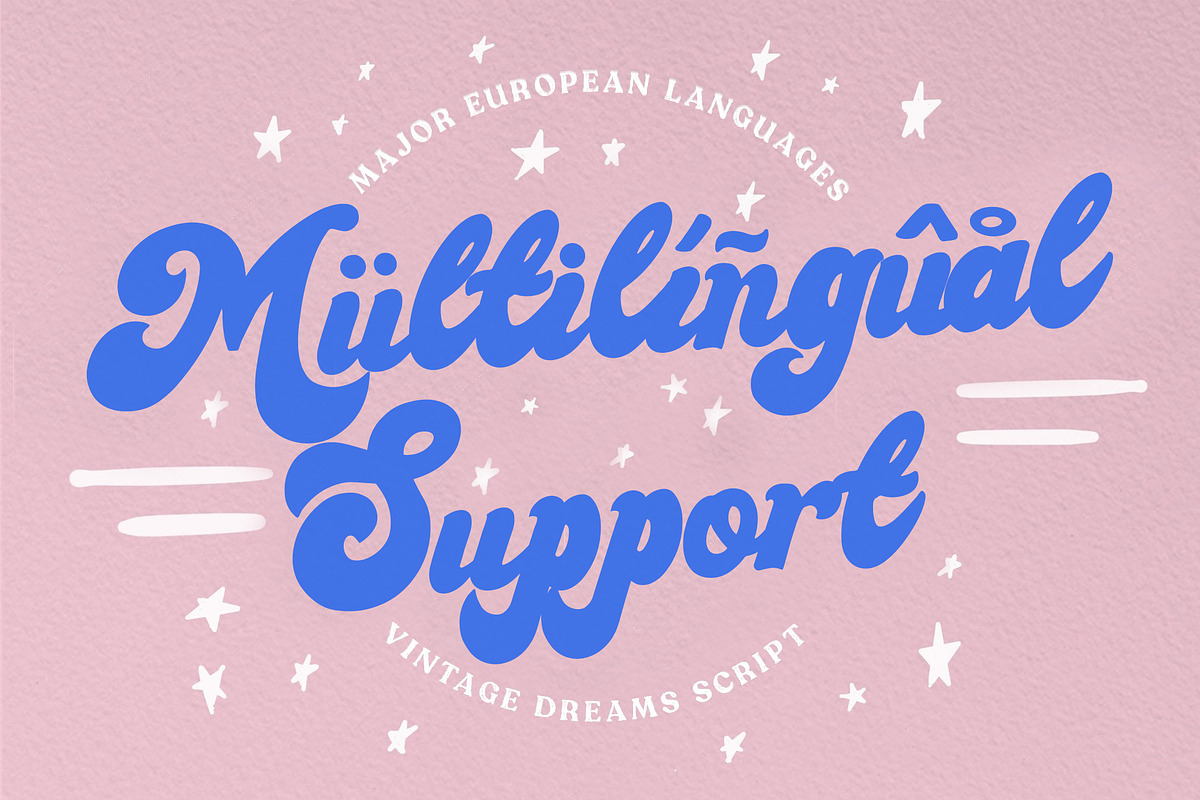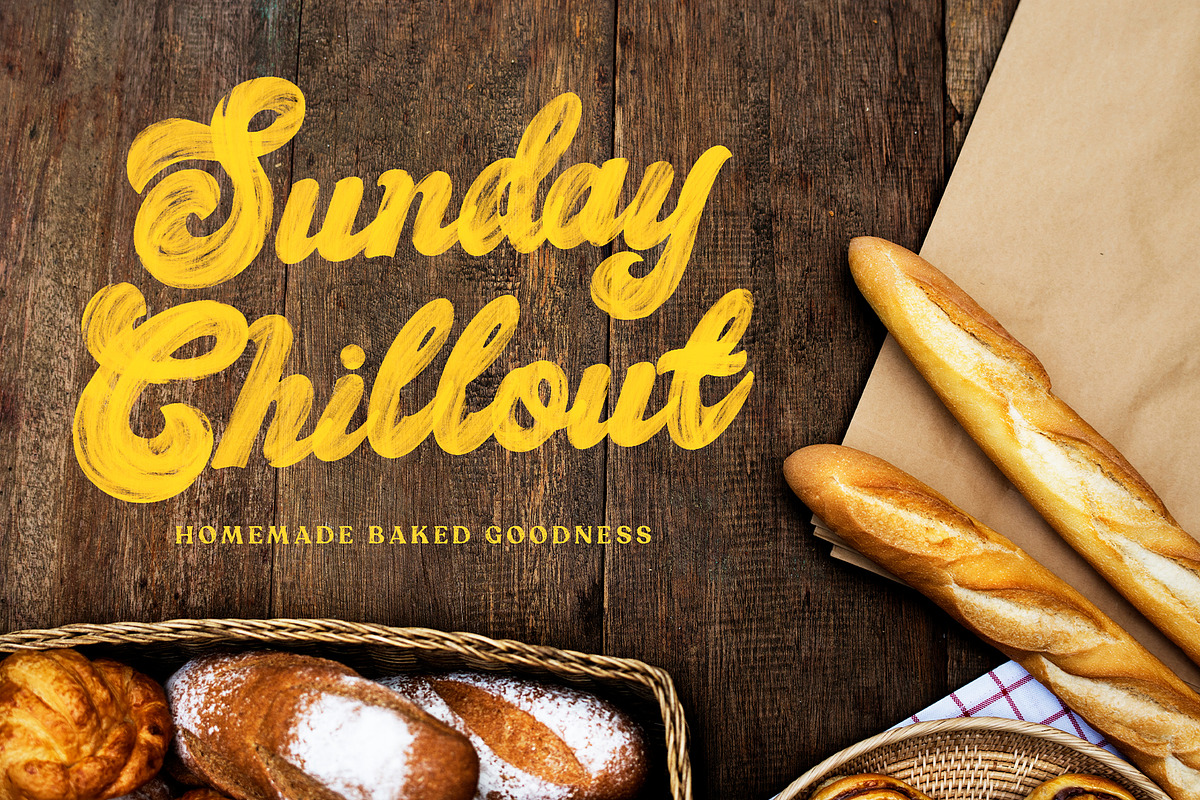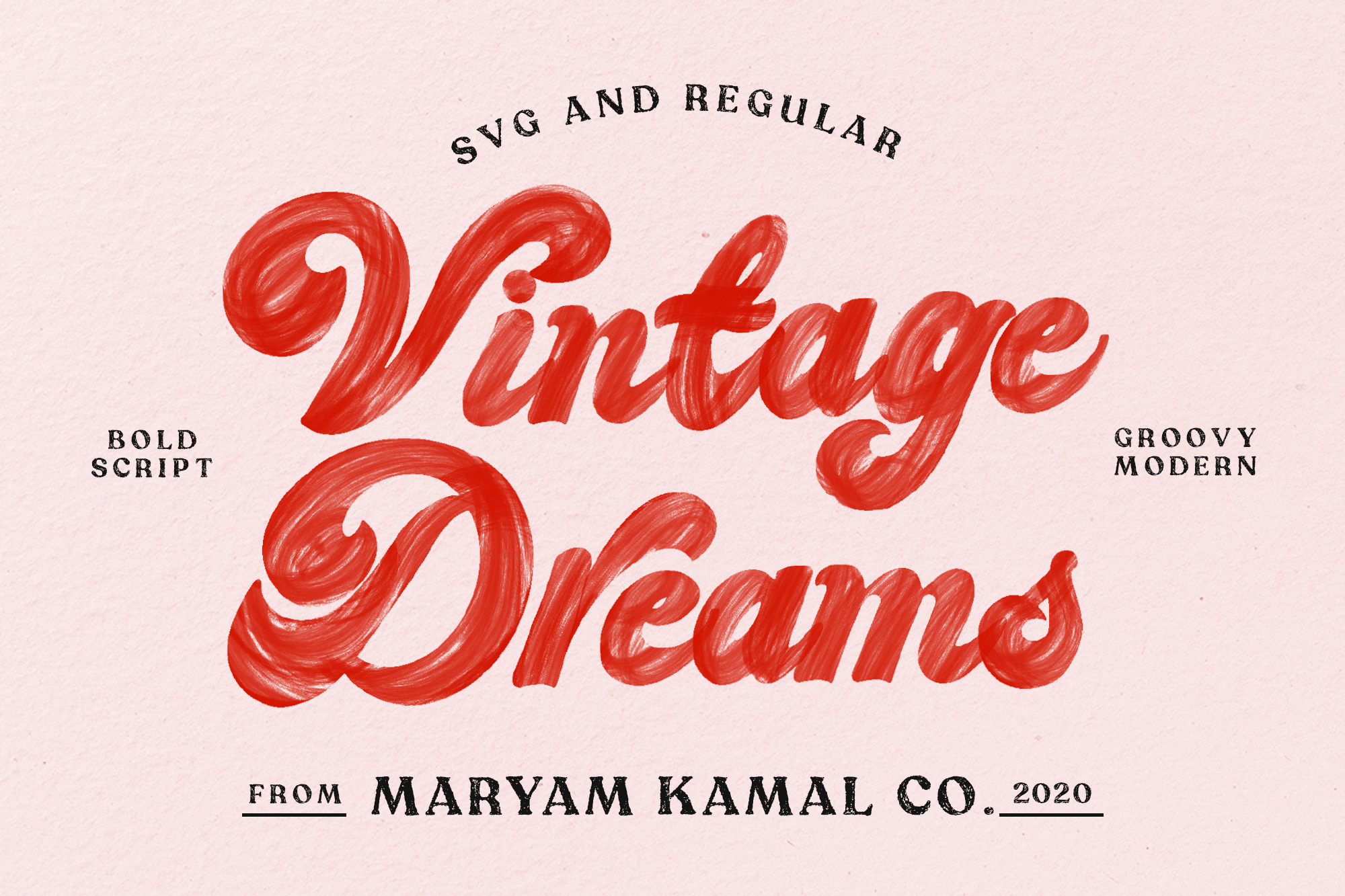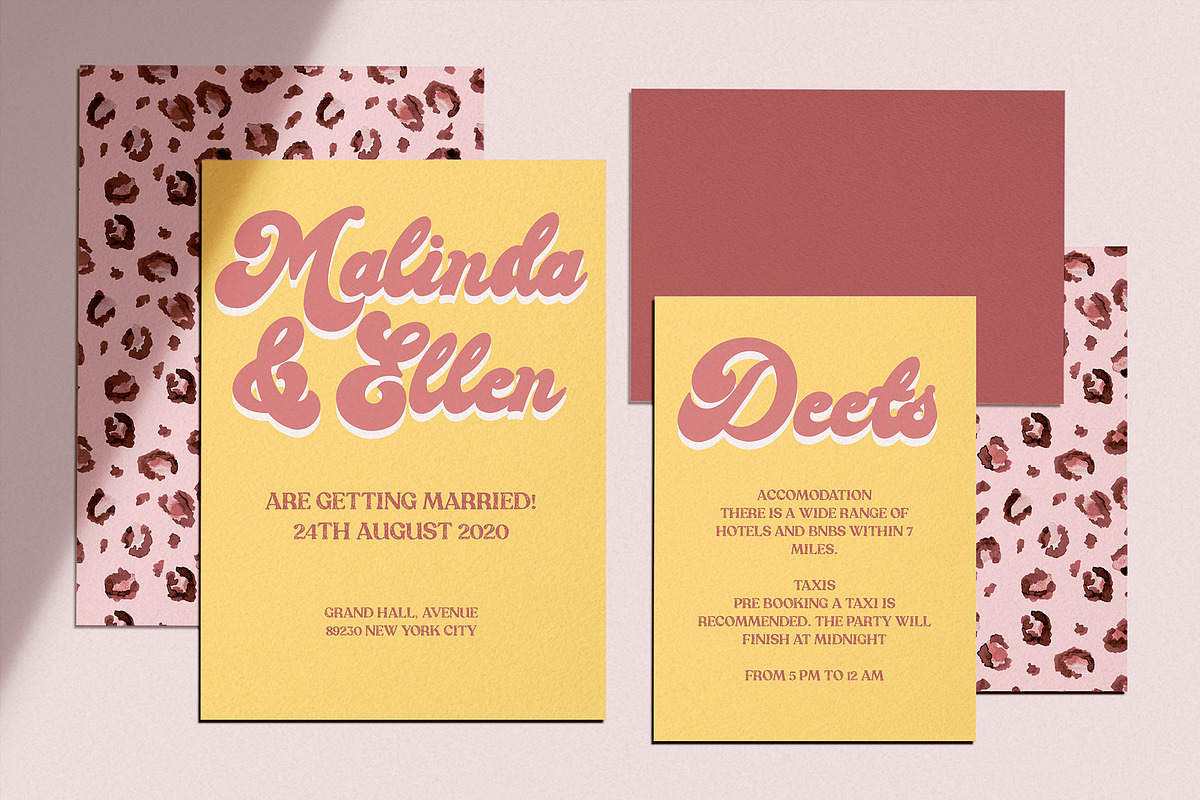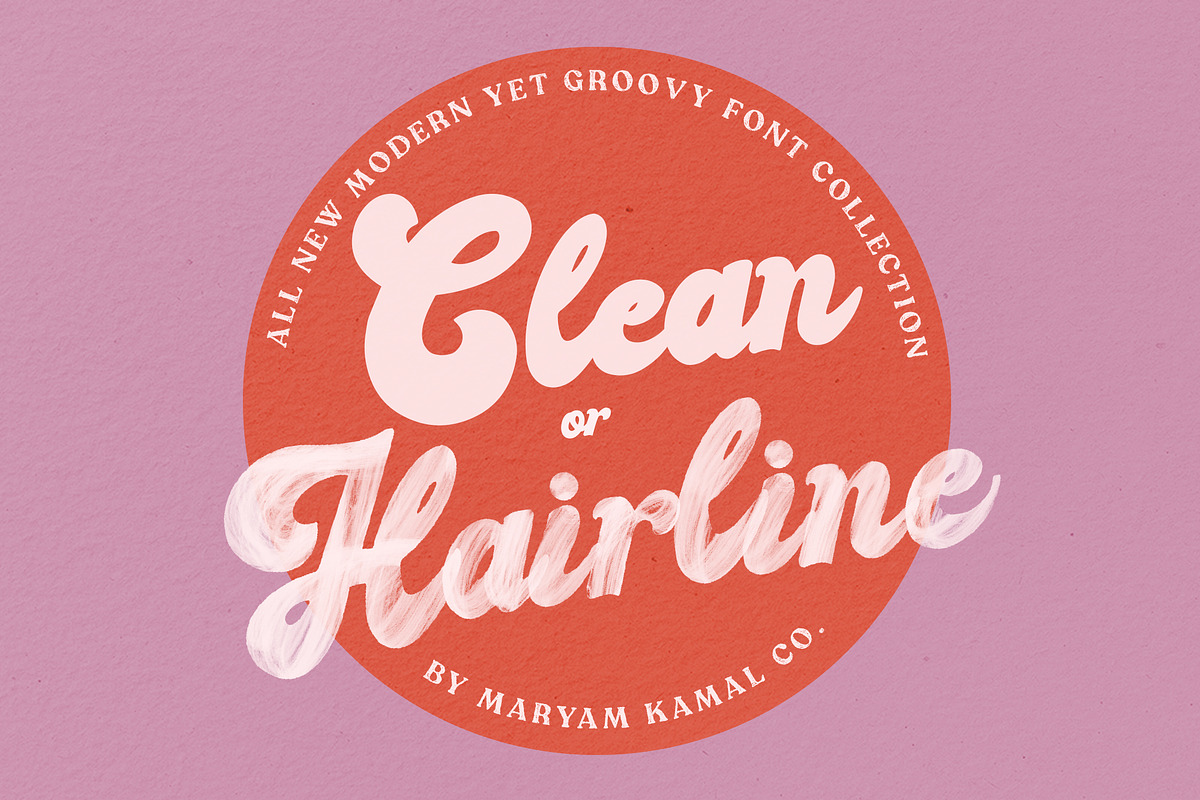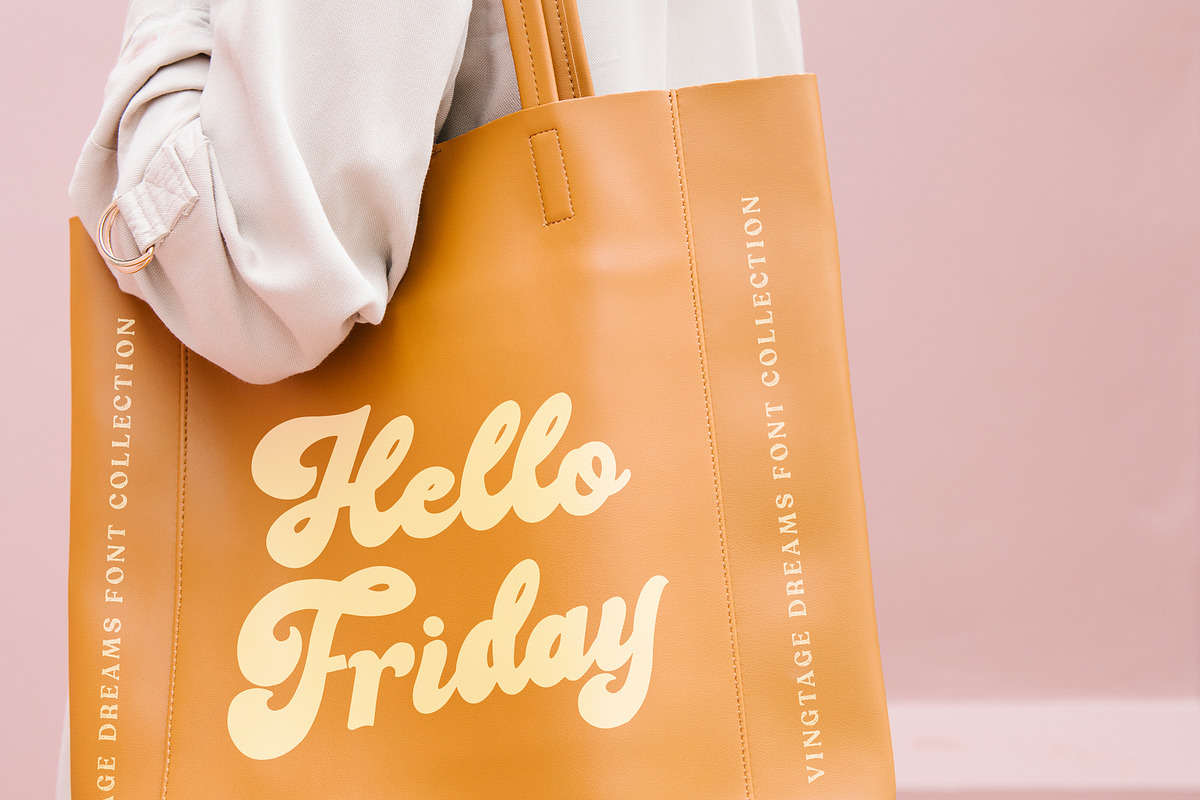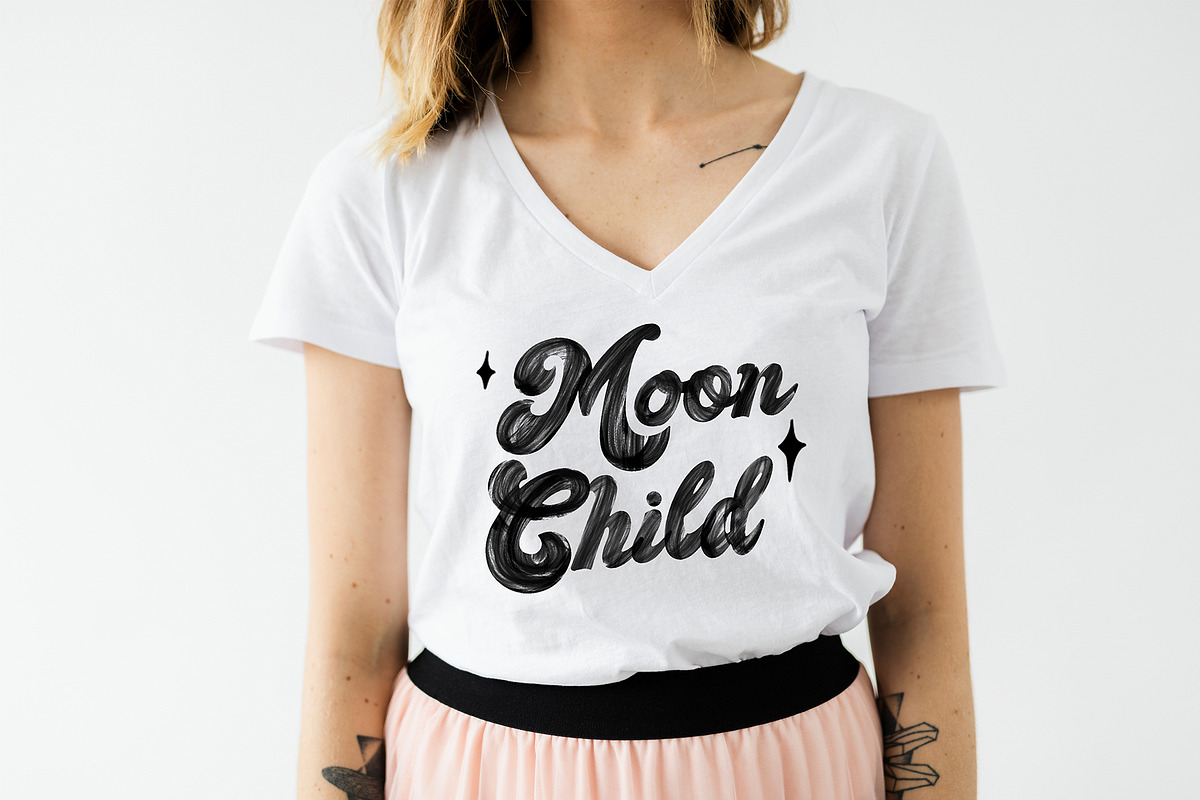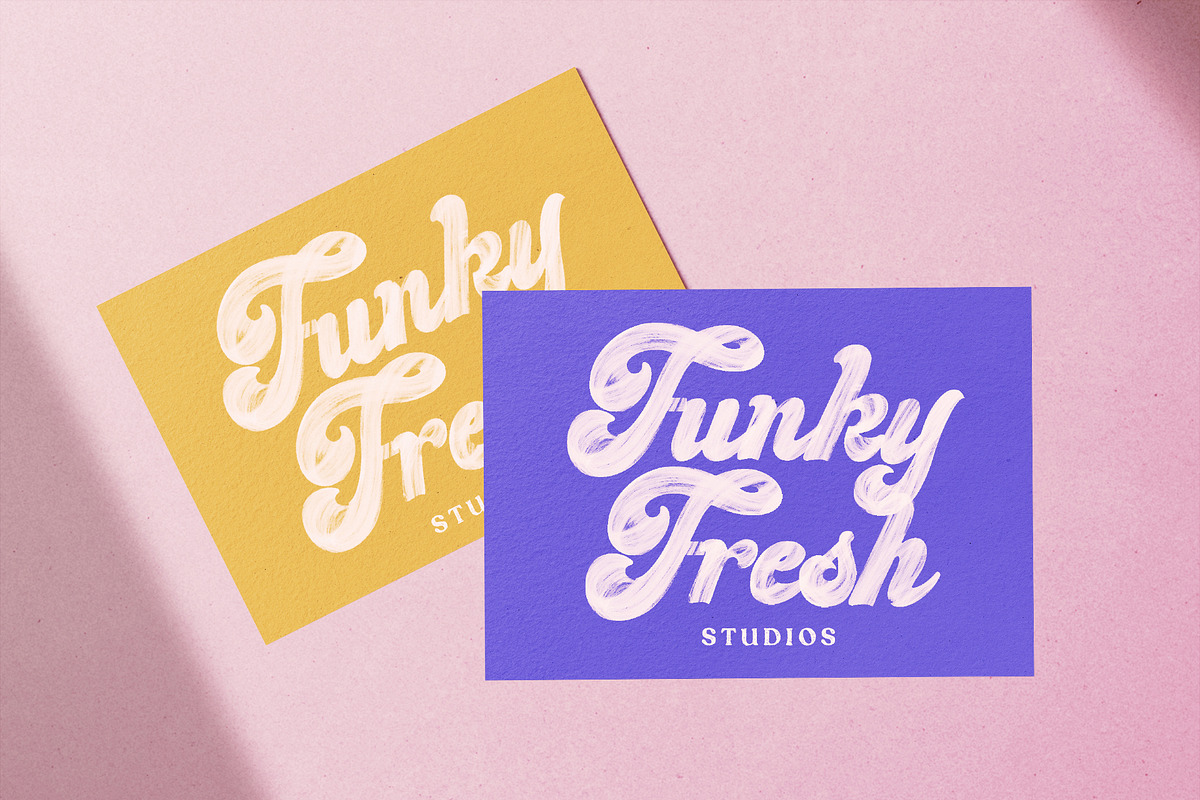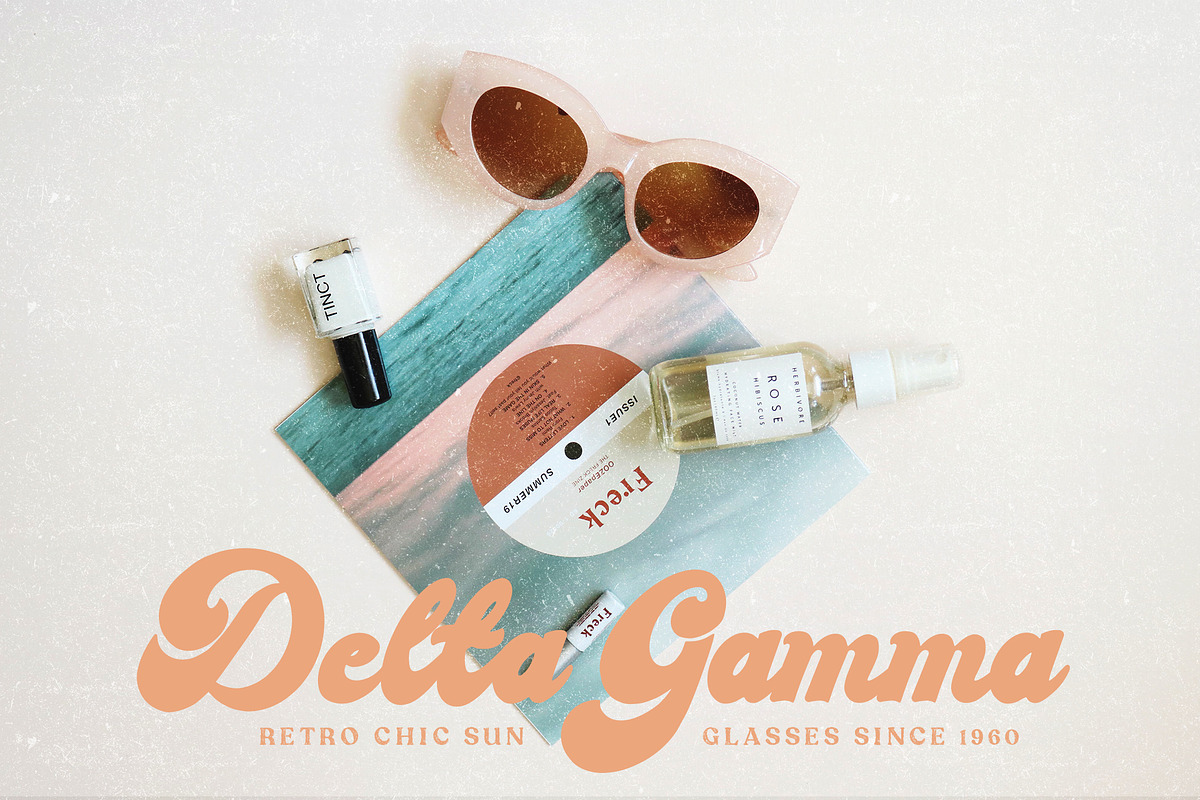
Vintage Dreams Modern Groovy Font
Introducing an all-new font collection - Vintage Dreams!
A Modern yet Groovy bold script is here to help you make a statement in your projects! Comes in Hairline/ brush SVG and a clean, solid version.
The bold and statement look is perfect for use to print on t-shirts, mugs, invitation cards, eye-catching flyers and posters, branding and more!
Language Support: Danish, English, Finnish, French, German, Italian, Luxembourgish, Norwegian Portuguese, Spanish, Swedish, Swiss German.
The following characters included á â à ä å ã æ ç é ê è ë í î ì ï ı ñ ó ô ò ö õ ø œ š ß ú û ù ü ý ÿ ž À Ä Å Ã Æ Ç É Ê È Ë Í Î Ì Ï Ñ Ó Ô Ò Ö Õ Ø Œ Š Û Ù Ü Ý Ÿ